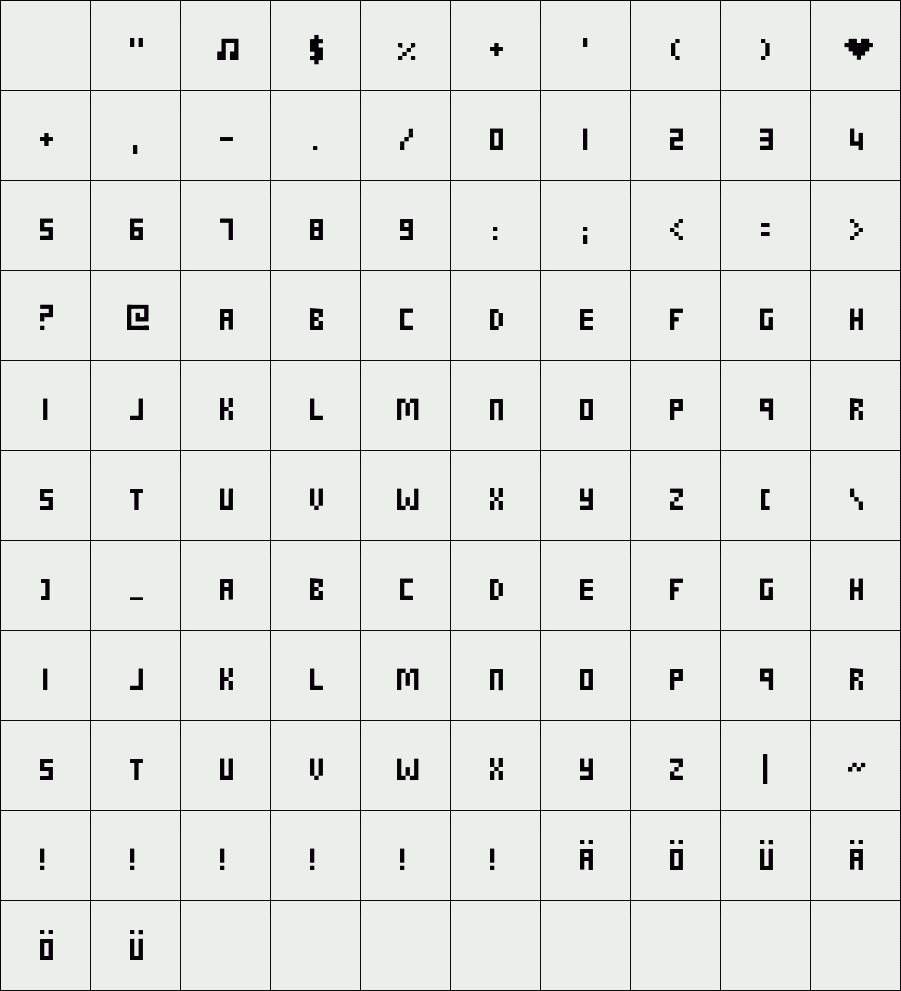
Wendy
The Wendy Pixel Font was originally made as a tiny bitmap font to use online - on your pictures, banners or anything else for your website. It's small but still very readable. You can make it bigger of course if you prefer =).
Designer: Wendy Boezer